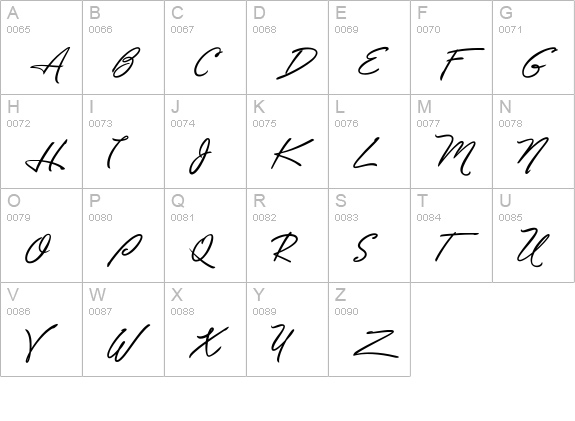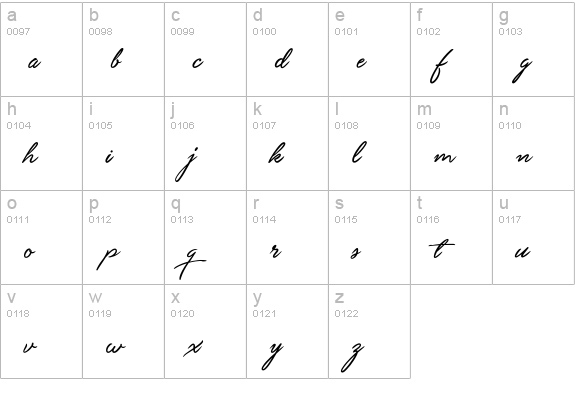
Unthrift First Personal Font Details
Unthrift First Personal font is a stunning display font that captures attention with its delicate and elegant design. It is the perfect choice for adding a touch of sophistication and uniqueness to any project. The fluid strokes and smooth curves of this font create a harmonious balance that is both eye-catching and pleasing to the eye. Designed with versatility in mind, Unthrift First Personal font is suitable for a wide range of applications. Whether you're designing a logo, creating branding materials, or crafting invitations, this font will elevate your work to new heights. Its clean and modern aesthetic makes it ideal for both digital and print applications, ensuring that your message is delivered flawlessly. What sets Unthrift First Personal font apart is that it is available for free download at FontsMarket.com. Yes, you read that right - this incredible font is freely available for you to use and enjoy. In a world where premium fonts often come with a hefty price tag, Unthrift First Personal font offers a breath of fresh air by providing high-quality design at no cost. With its extensive character set, Unthrift First Personal font supports multiple languages, making it a versatile choice for international projects. Its legibility and readability remain strong, even at smaller sizes, ensuring that your message is conveyed clearly to your audience. Whether you're a professional designer or a hobbyist, Unthrift First Personal font is a valuable addition to your font library. With its unique blend of elegance and versatility, this font will bring your creative visions to life. Download it today for free at FontsMarket.com and unlock a world of endless possibilities for your designs.